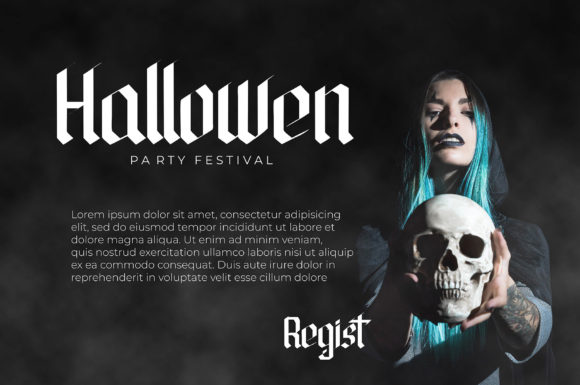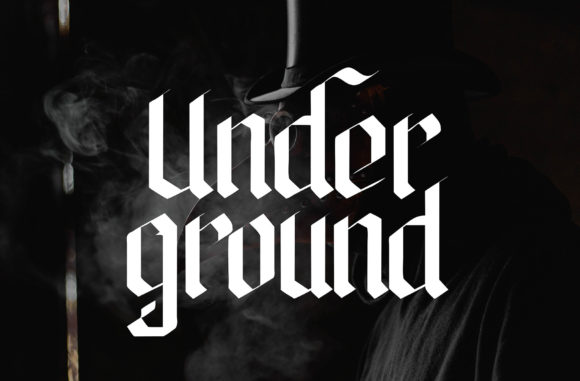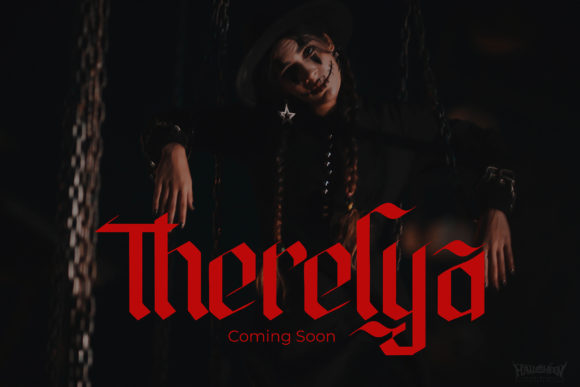
Galexya Font: Free Download Now
Galexya Font – Free Download
Introduction to Galexya Font
Galexya is a bold and gothic styled blackletter font.
👤 Author Authentic Studio
It will look stunning on any poster, flyer or print Use this font for your designs and explore its endless possibilities.
Galexya Font offers exceptional quality and versatility, making it a valuable addition to your design toolkit. Whether you’re creating for personal projects or commercial use, Galexya Font delivers professional results.